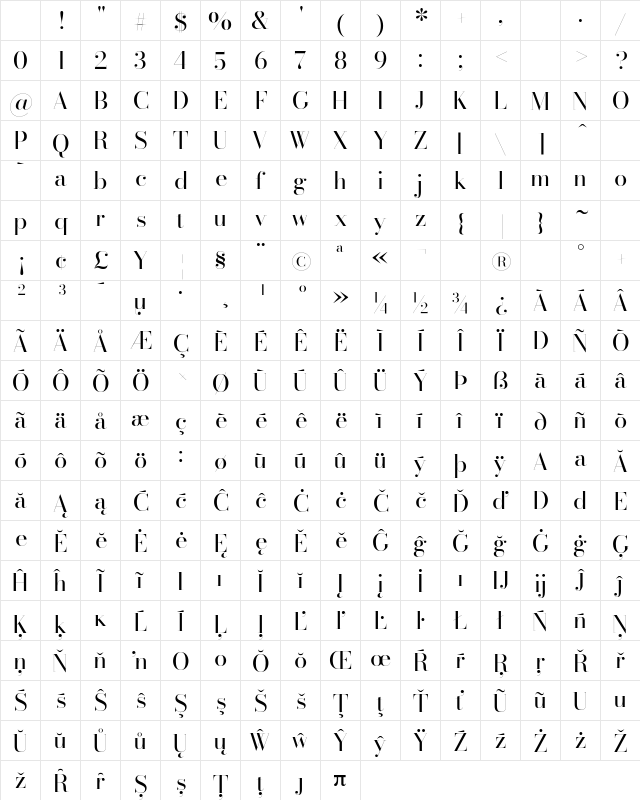
Bodoni* 36 Regular Free Font
Bodoni* 36 Regular
Design Context for Bodoni* 36
Bodoni* 36 is a composed and adaptable typeface that performs quietly and consistently across a wide range of design contexts.